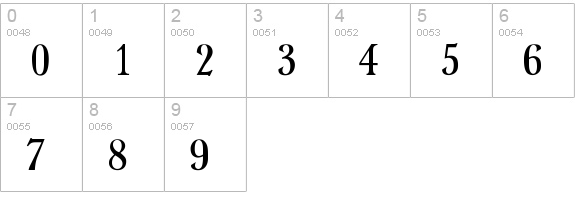
Colorado Font Details
Colorado font is a stunning and versatile typeface that exudes sophistication and elegance. With its clean lines and modern aesthetic, this font is perfect for a wide range of design projects, from branding to editorial design. Its sleek and professional appearance makes it ideal for creating eye-catching logos, elegant invitations, stylish packaging, and much more. What sets Colorado font apart is its unique blend of classic elegance and contemporary flair, making it a truly timeless choice for any design project. Whether you're working on a corporate identity, a wedding invitation, or a magazine layout, Colorado font will add a touch of class and sophistication to your work. Best of all, Colorado font is available for free download at FontsMarket.com, so you can start using it in your projects right away. Don't miss out on this fantastic opportunity to elevate your designs with the beauty and elegance of Colorado font. Download it today and see the difference it can make in your creative work.